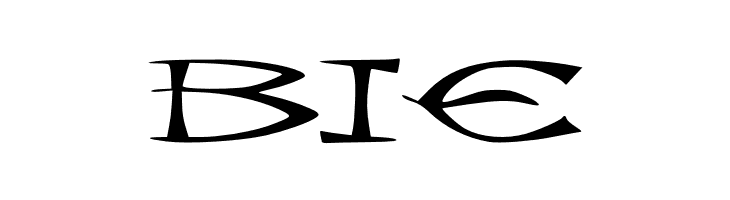
( NyloGD )
A playful, hand-drawn font with irregular strokes and a casual style.
( RamonaMagdolna )
A playful, casual handwritten font with irregular strokes and an organic flow.
( Slotboom )
A bold, geometric font with sharp, angular edges and a modern style.
A playful, angular, and oblique font with a modern comic style.
A playful, modern font with a clean, angular style and excellent legibility.
A playful, hand-drawn font with irregular, wavy letterforms.
A dynamic, angular font with sharp strokes and a martial arts-inspired style.
A playful, modern font with angular elements and a dynamic feel.
A futuristic, geometric font with angular, block-like letterforms.
A playful, hand-drawn font with irregular strokes and artistic flair.